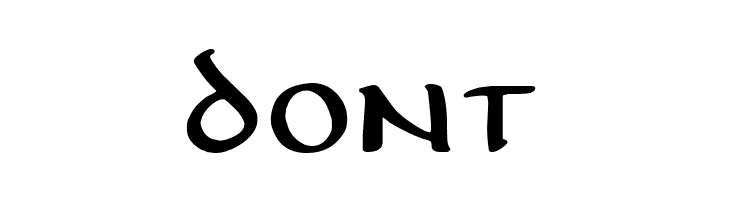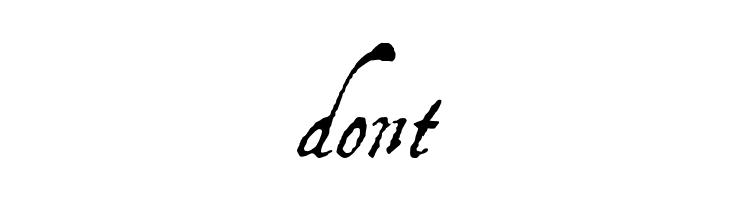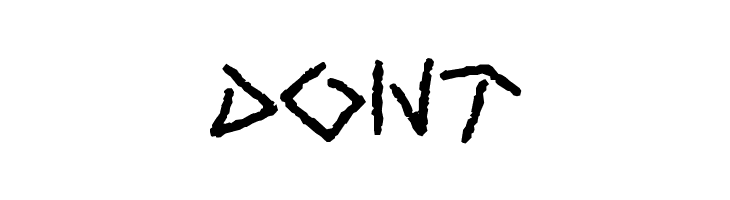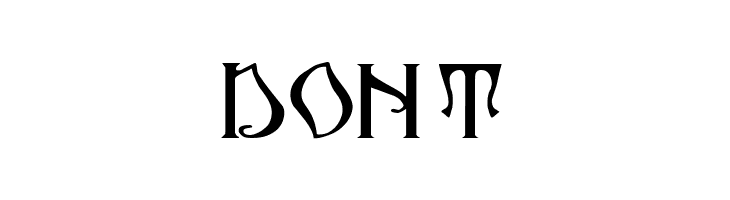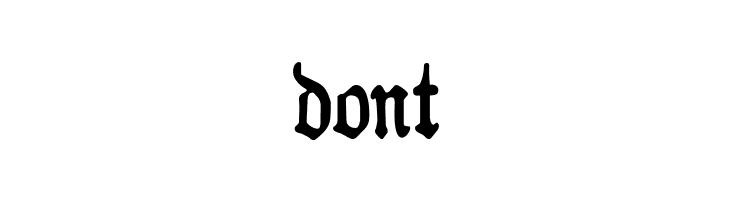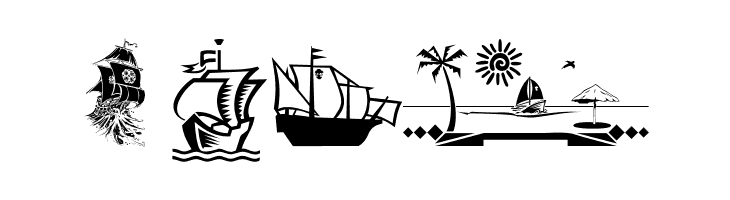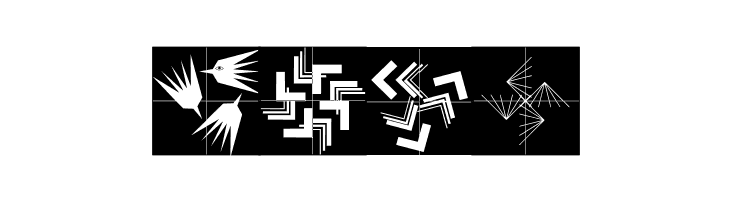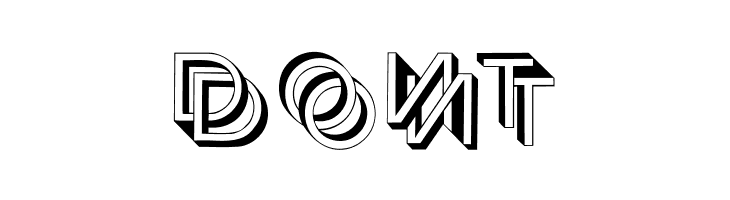
• AnironC Bold
A bold, medieval-inspired font with sharp angles and smooth curves.
• AnmolUni
• AnmolUni Bold
• AnmolUniBani
• AnmolUniBani Bold
• AnmolUniBaniHeavy Regular
• AnmolUniHeavy Regular
• Anquietas
• Antraxja Goth 1938
A bold, intricate Blackletter font with a gothic, medieval aesthetic.
• Aparta
A bold, modern font with sharp angles and smooth curves.
• Aprilapril
A whimsical Halloween-themed decorative font with playful illustrations.
• AquilineTwo
A flowing, cursive script font with elegant, calligraphic strokes.
• Architypogra
A bold, three-dimensional font with architectural and geometric influences.
• ArchitypograPsychodeliqu
A bold, 3D font with a playful, retro comic book style.
• ArhaicRegular
• ArmadaPirata
A maritime-themed decorative dingbat font with pirate ships and nautical icons.
• AroundSports
A bold, geometric font with a pixelated, digital appearance.
• ArrowsCompetition
Abstract, decorative dingbat font with arrow and geometric motifs.
• Art
A modern, geometric sans-serif font with clean, rounded edges and uniform stroke width.
• Art Greco
A bold, hand-drawn font with a rough, textured, and angular style.
• Artistiques-Bricks
A decorative and artistic font with intricate patterns and embellishments.
• ARTURRegular
A modern, geometric font with a futuristic and sleek design.